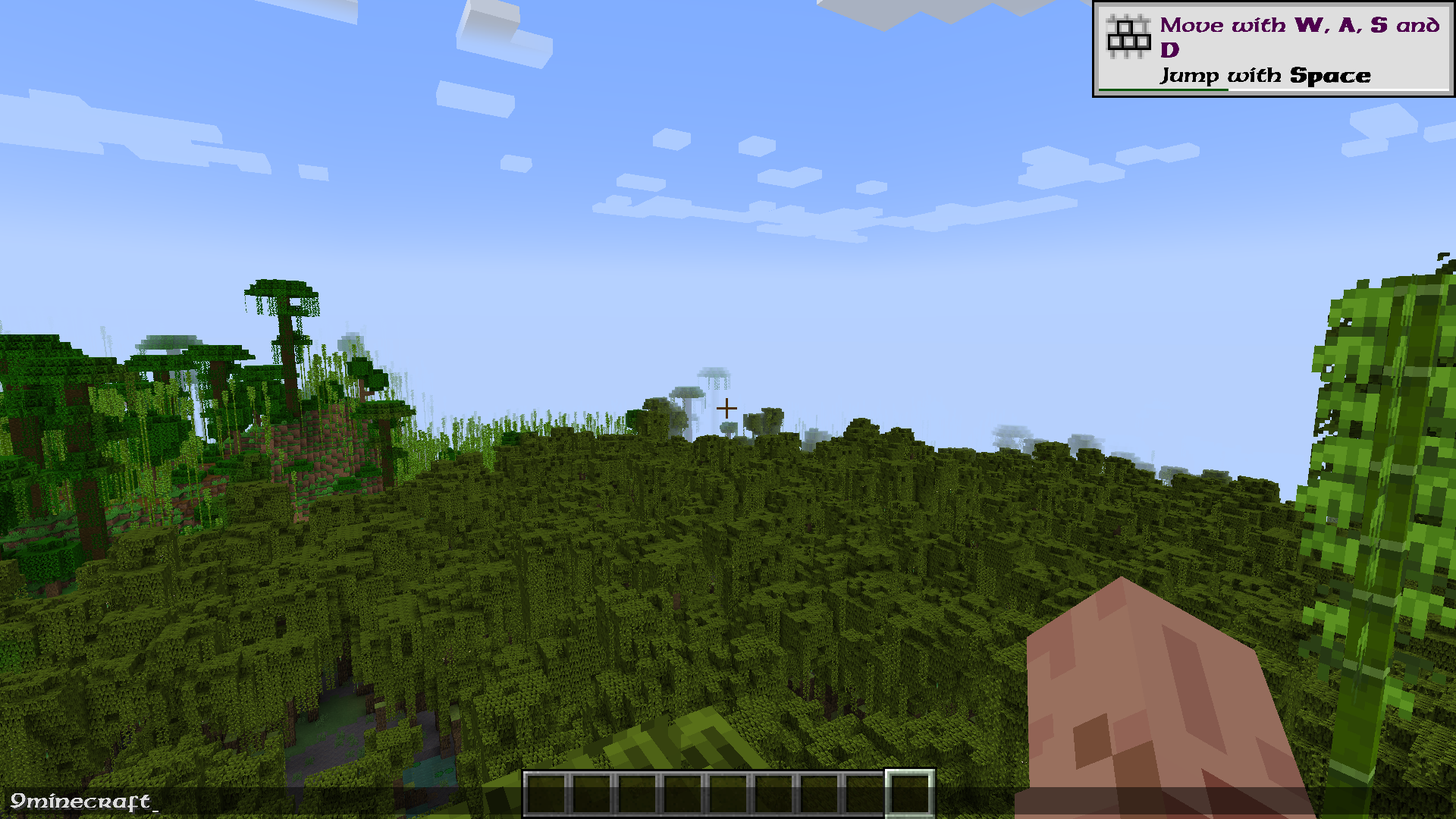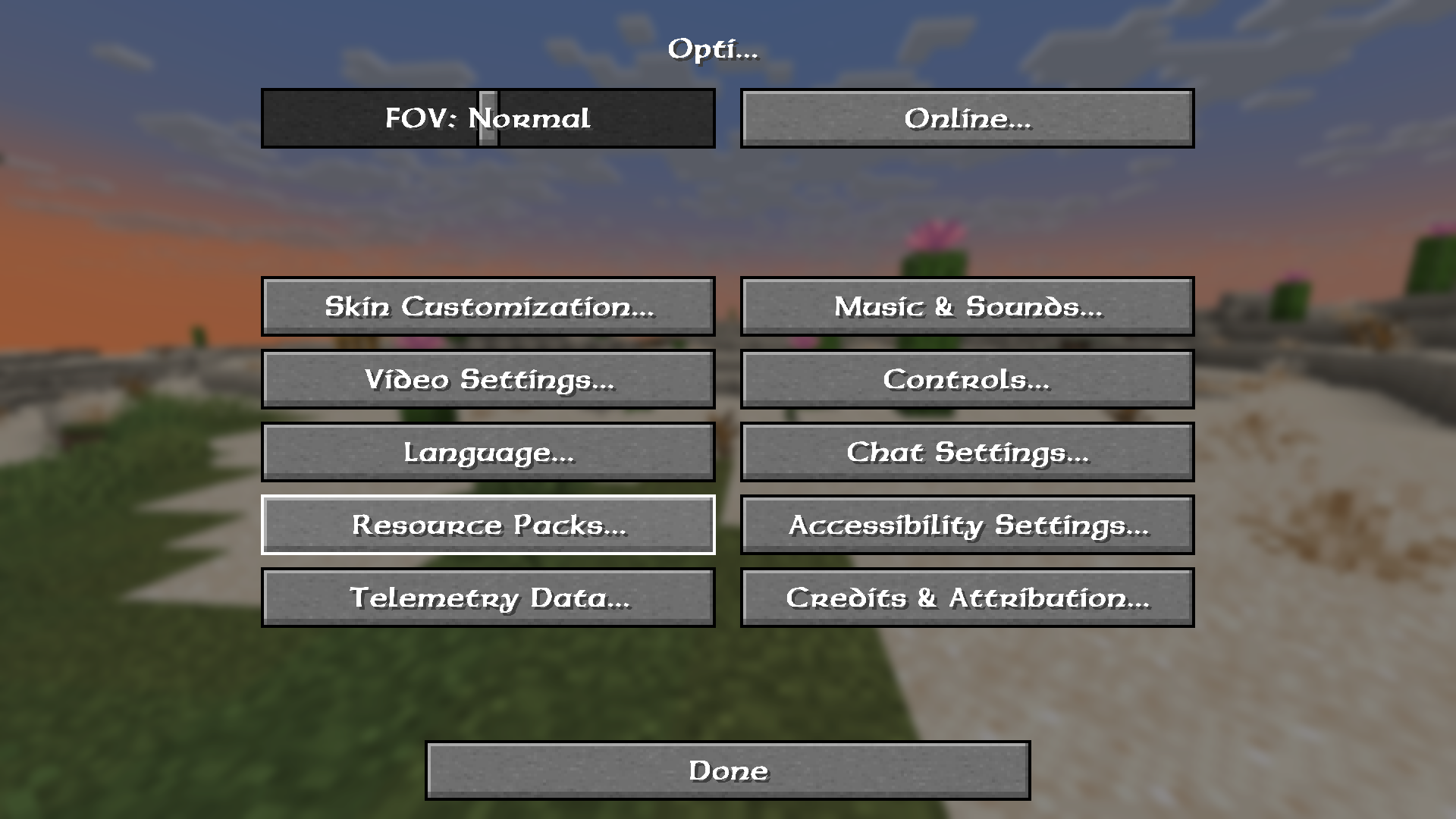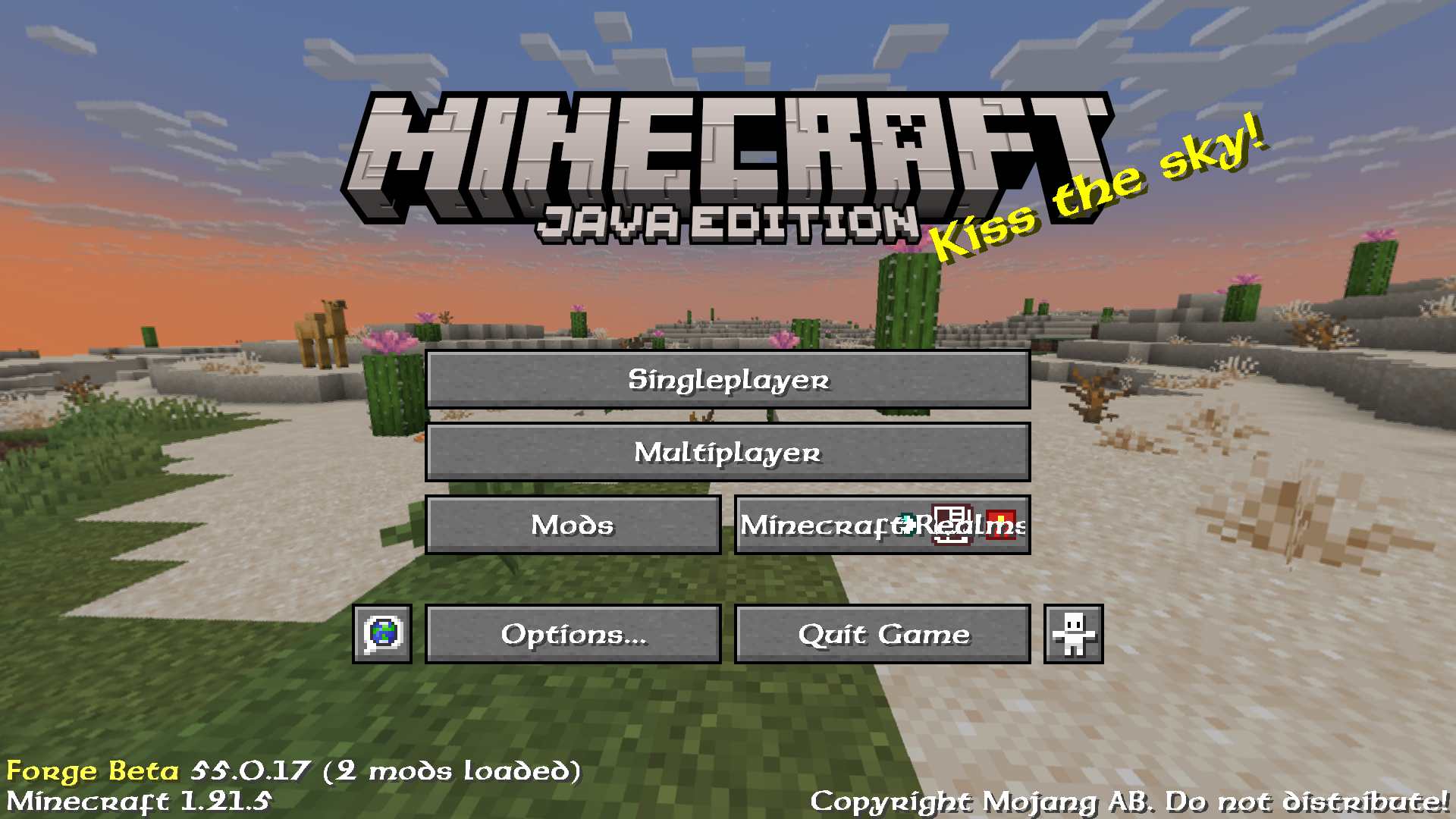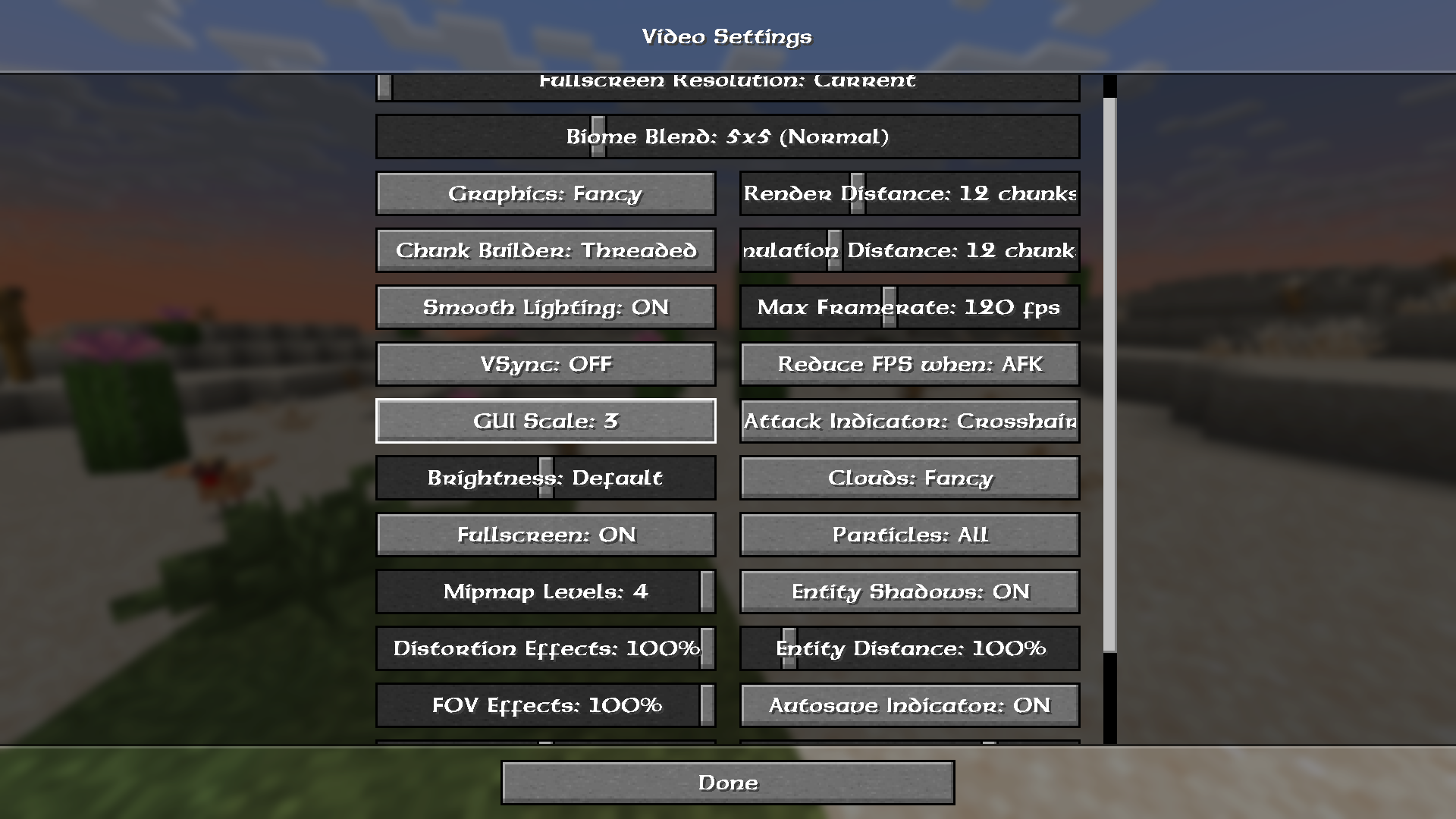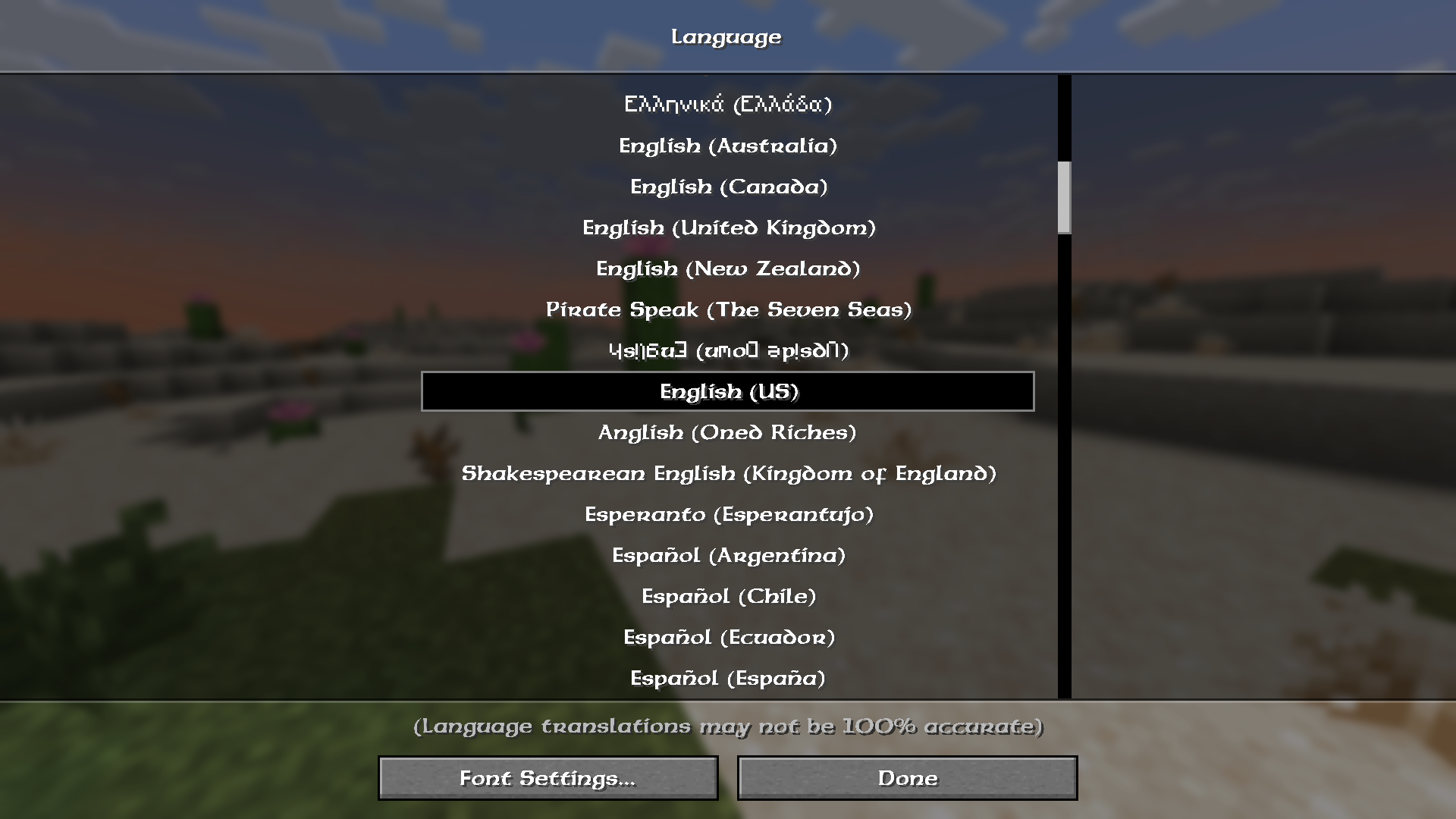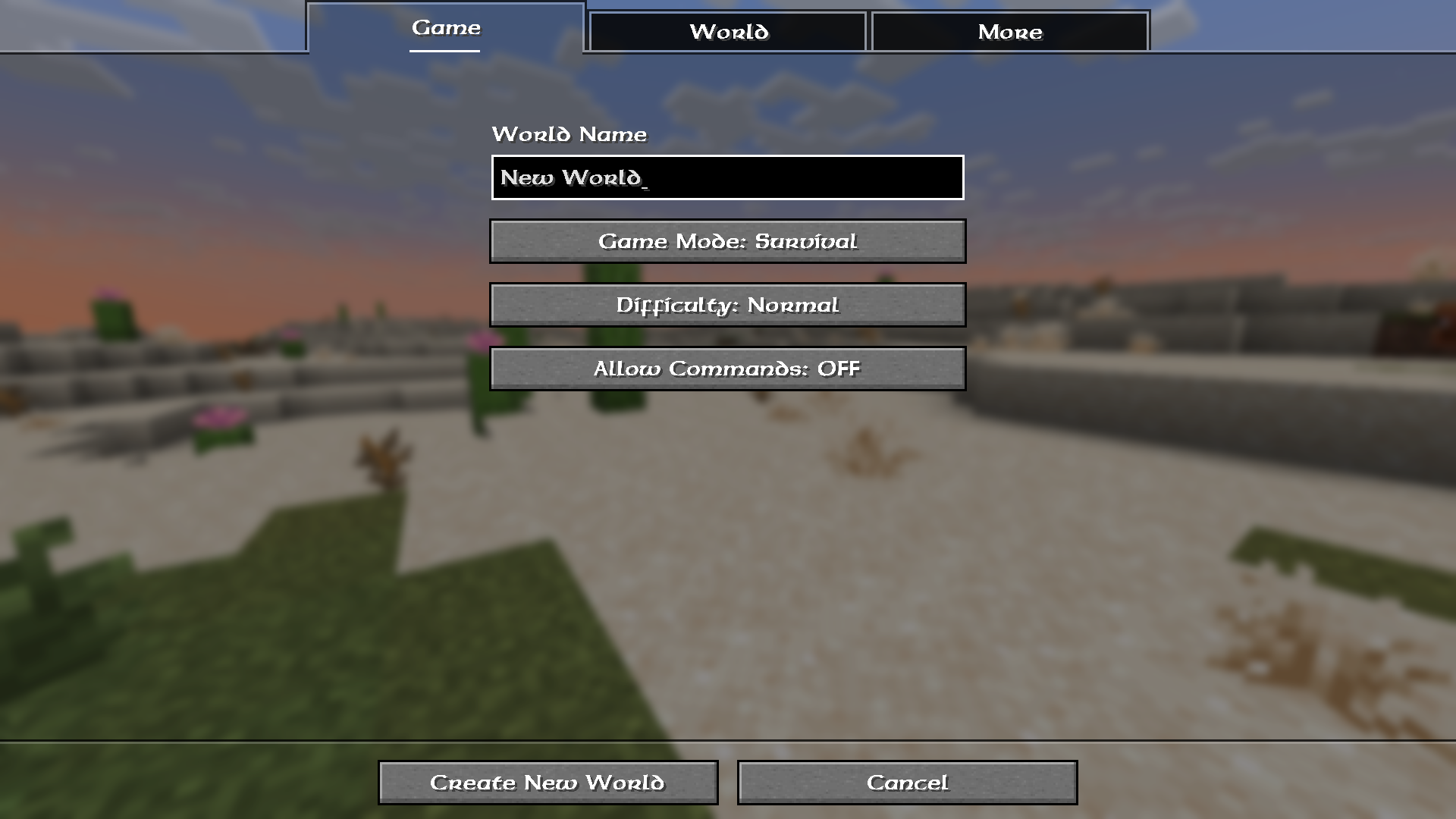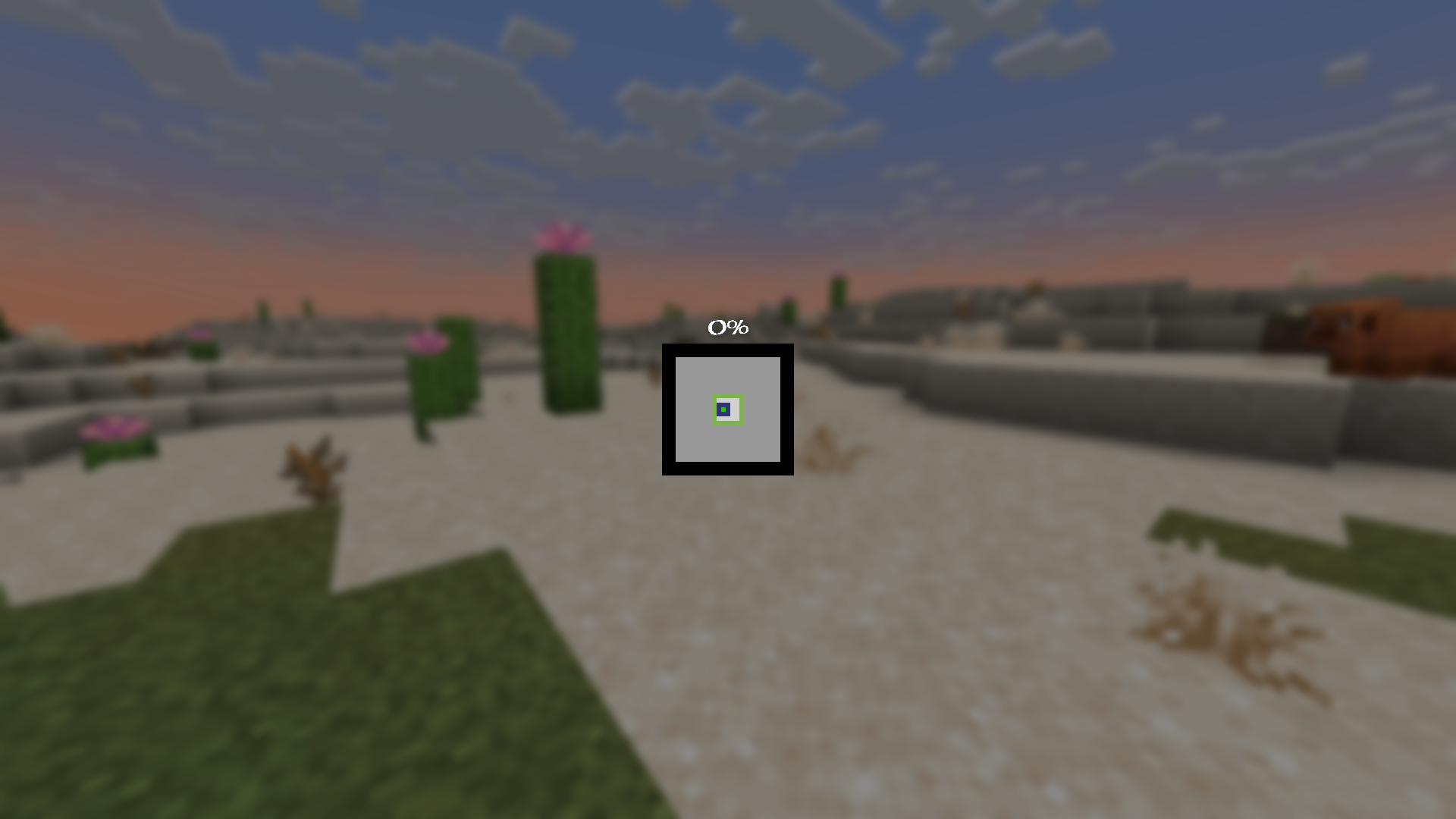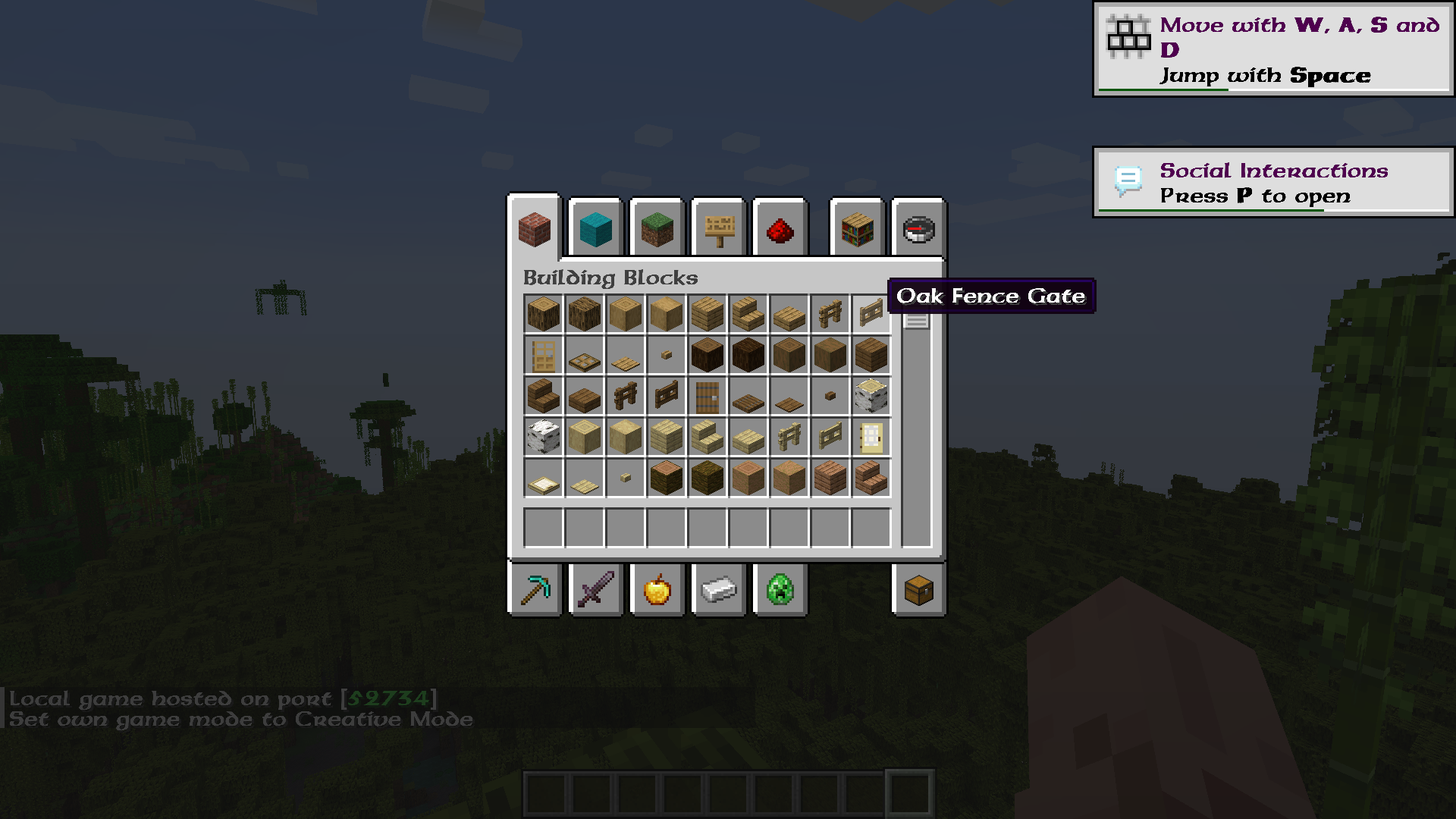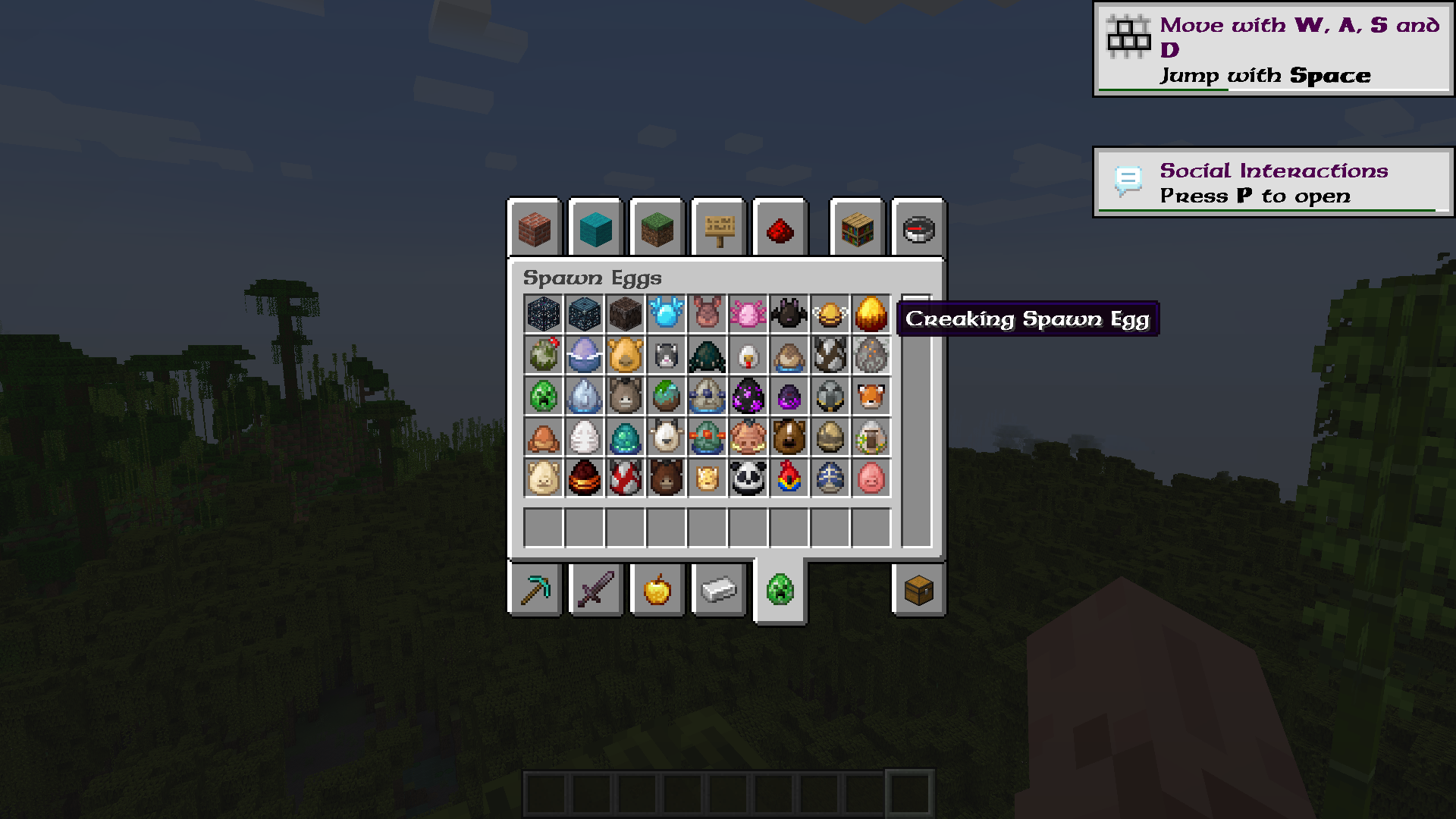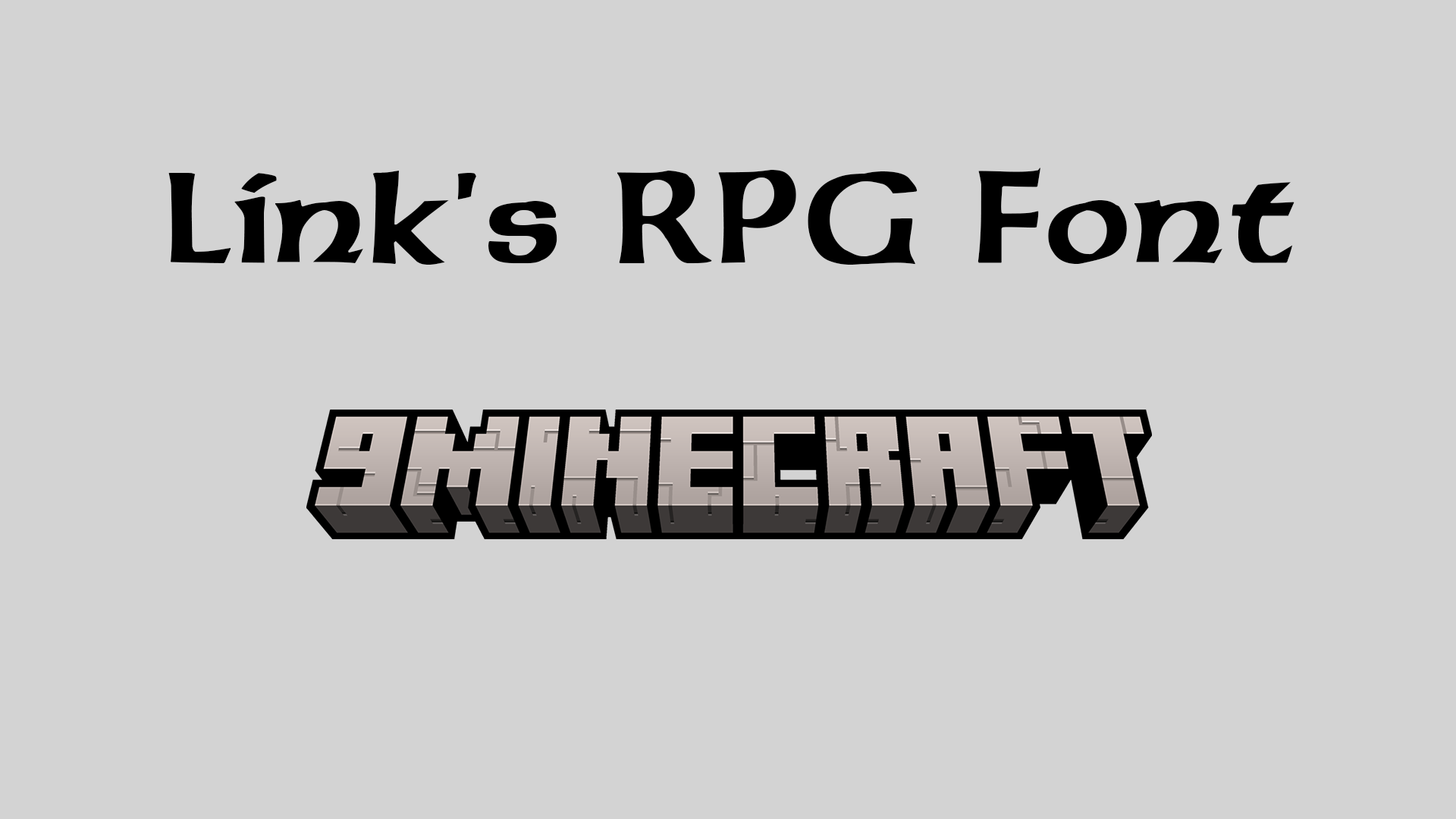
Link’s RPG Font Resource Pack (26.2, 1.20.1) – Texture Pack
Link’s RPG Font Resource Pack is a custom font pack that replaces Minecraft’s default font with the iconic lettering style from The Legend of Zelda series. It brings a nostalgic and fantasy vibe to your in-game text.